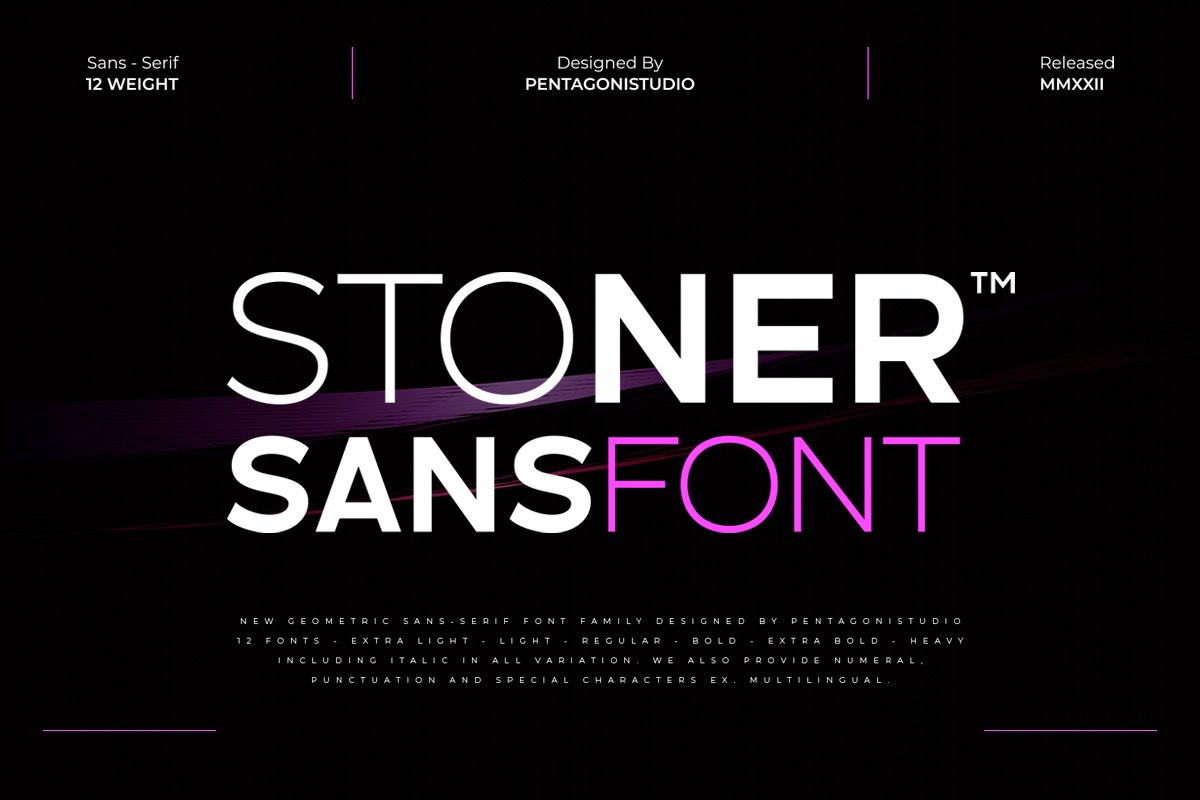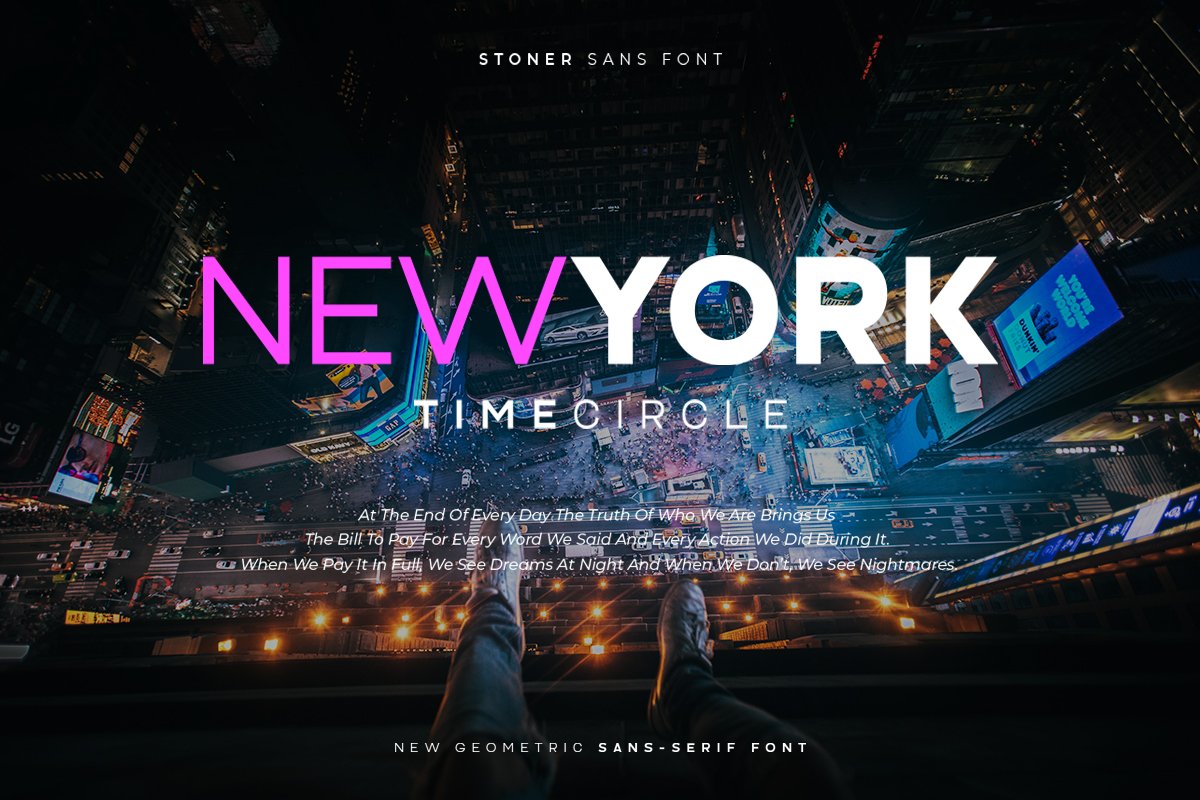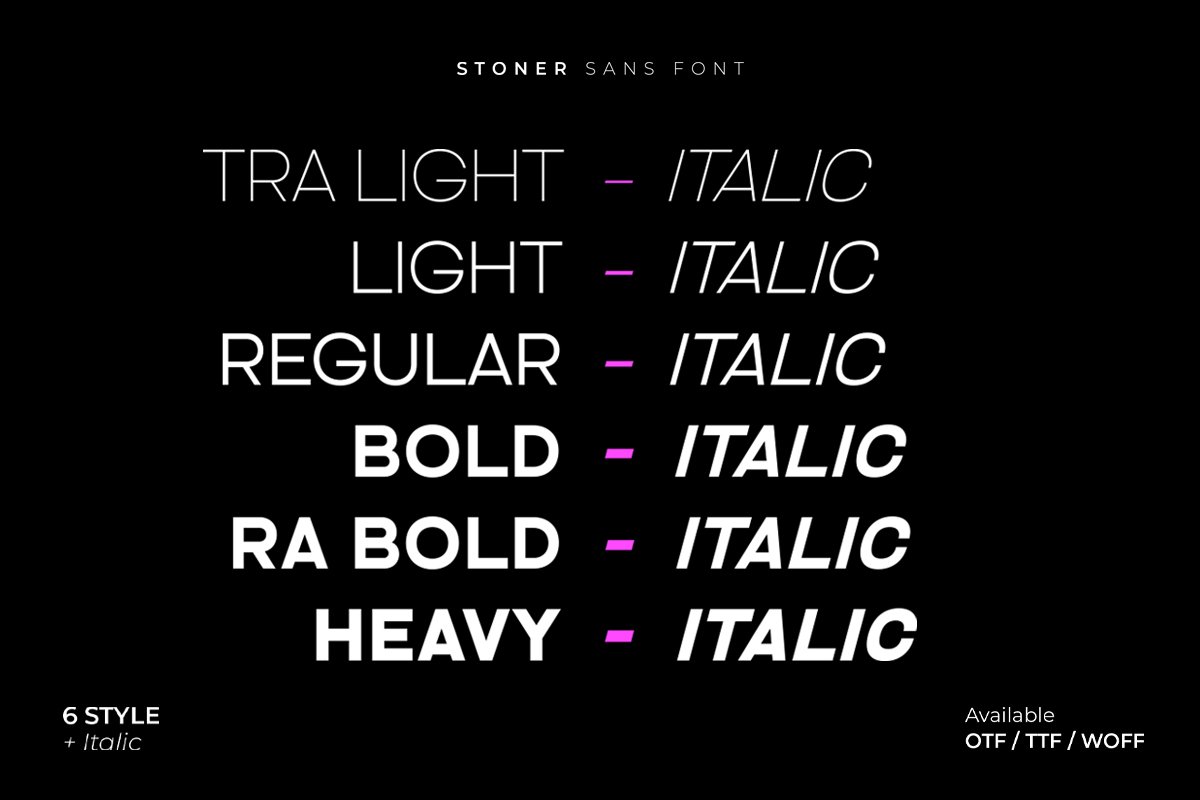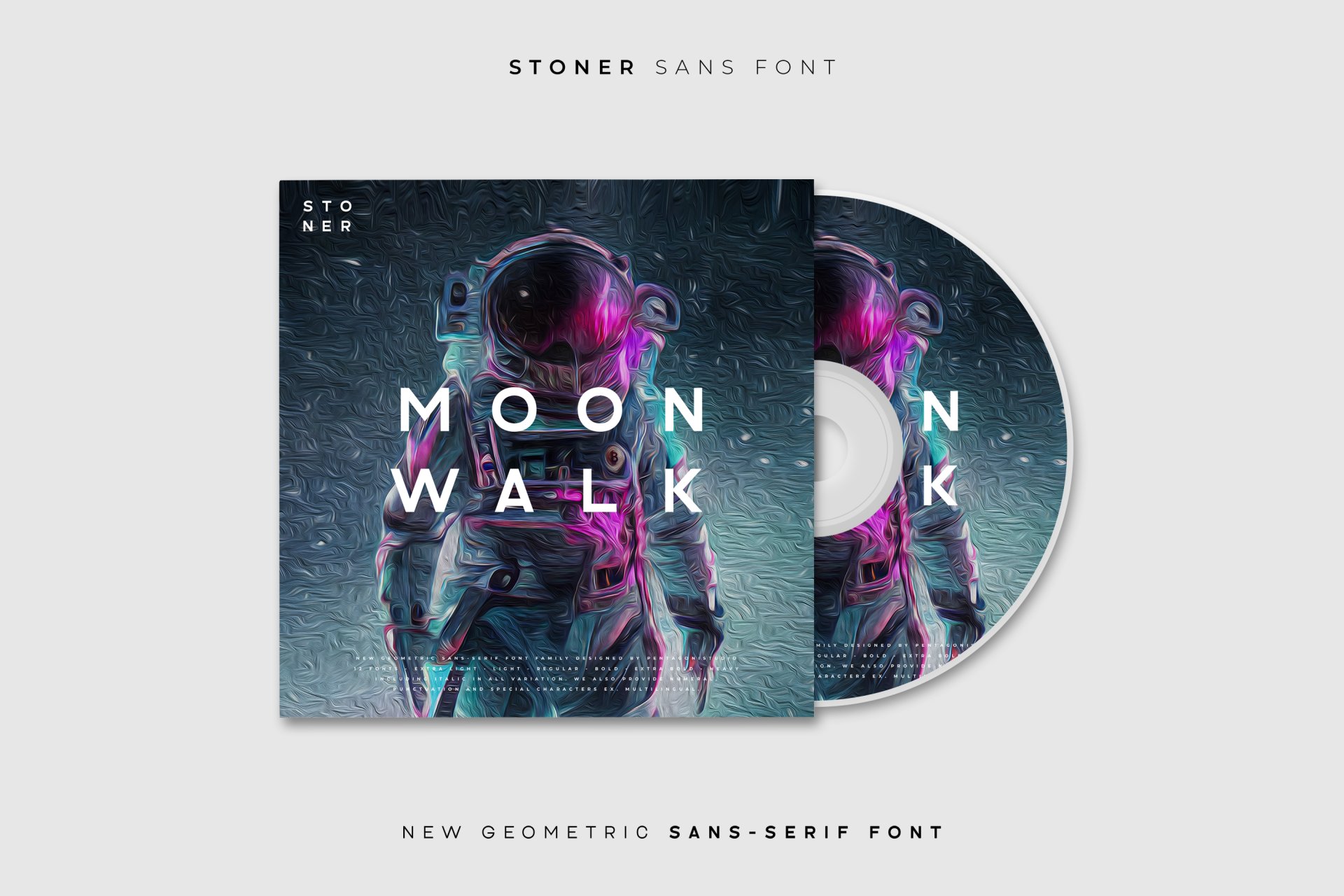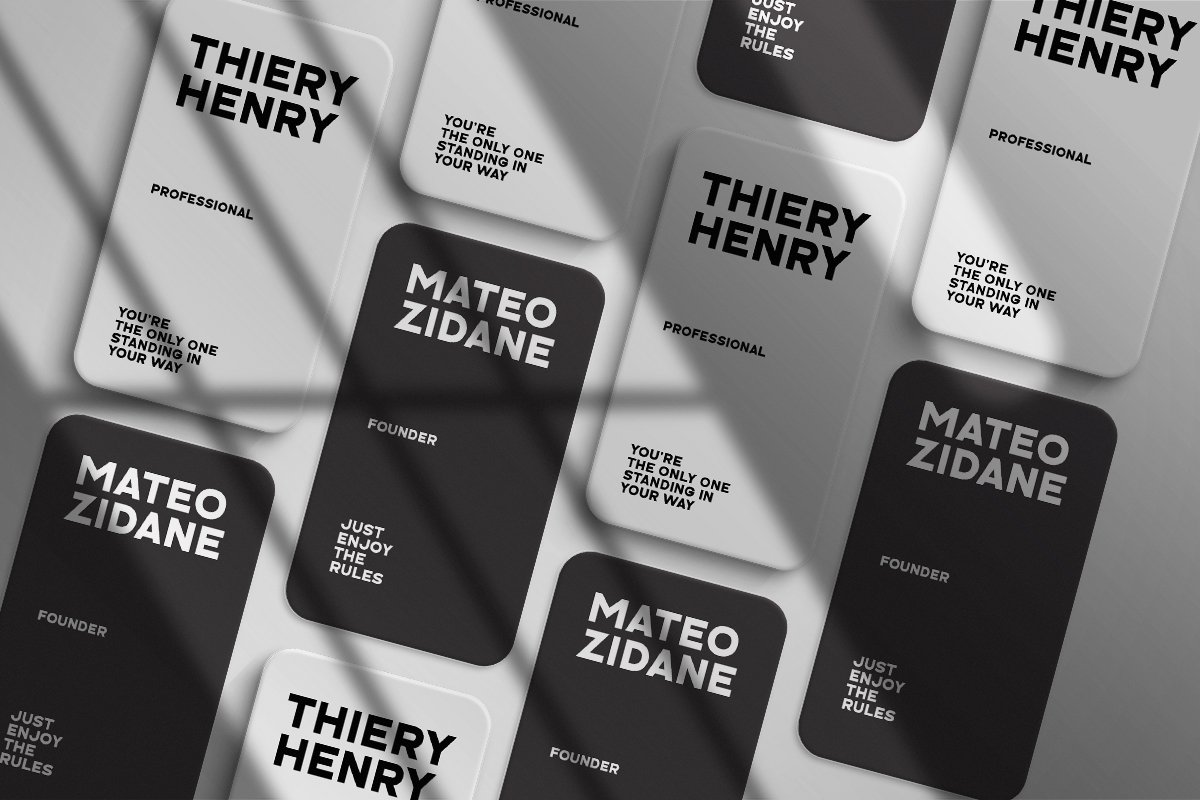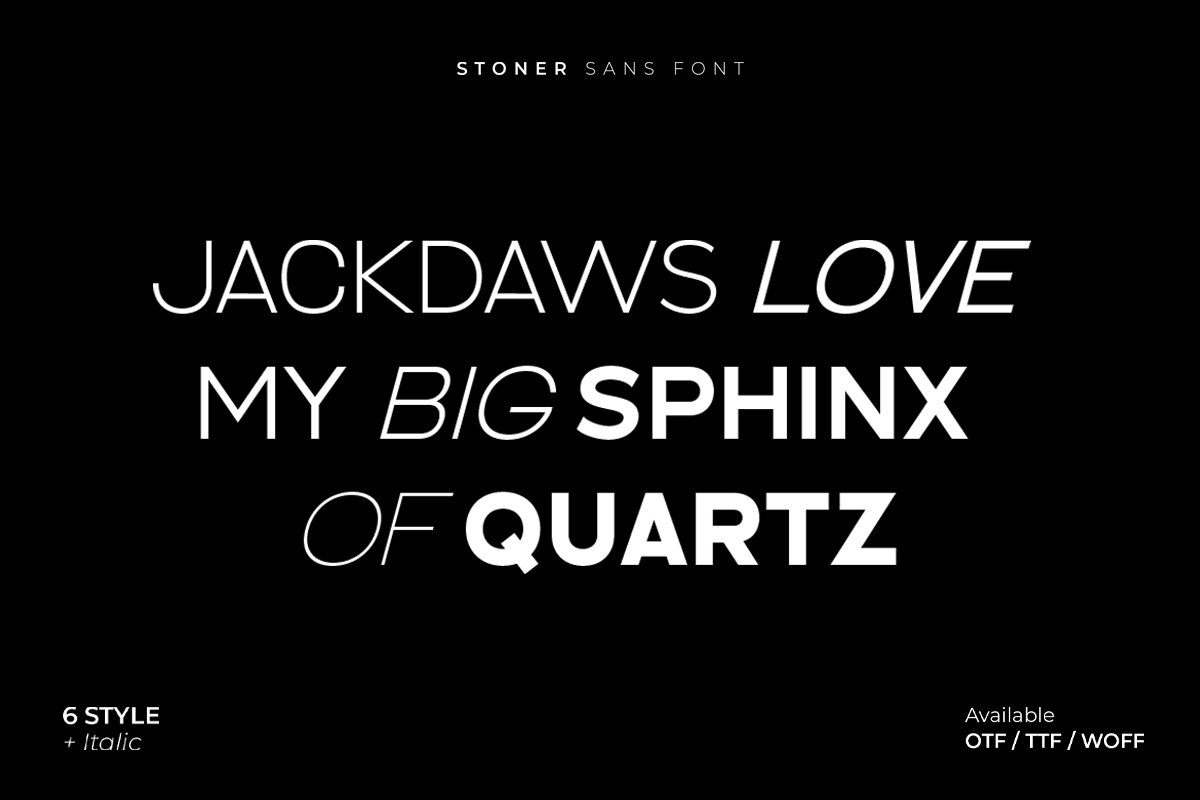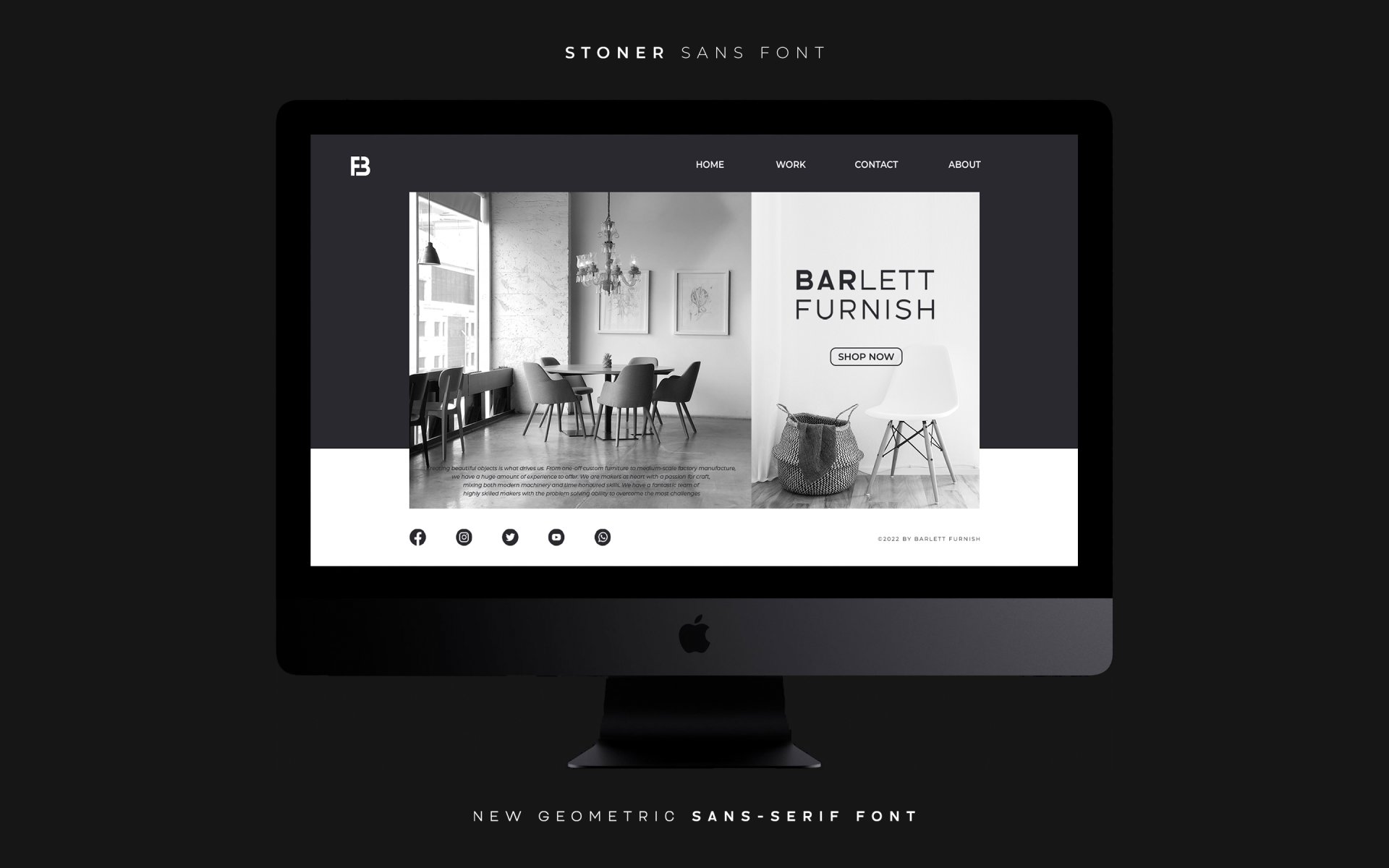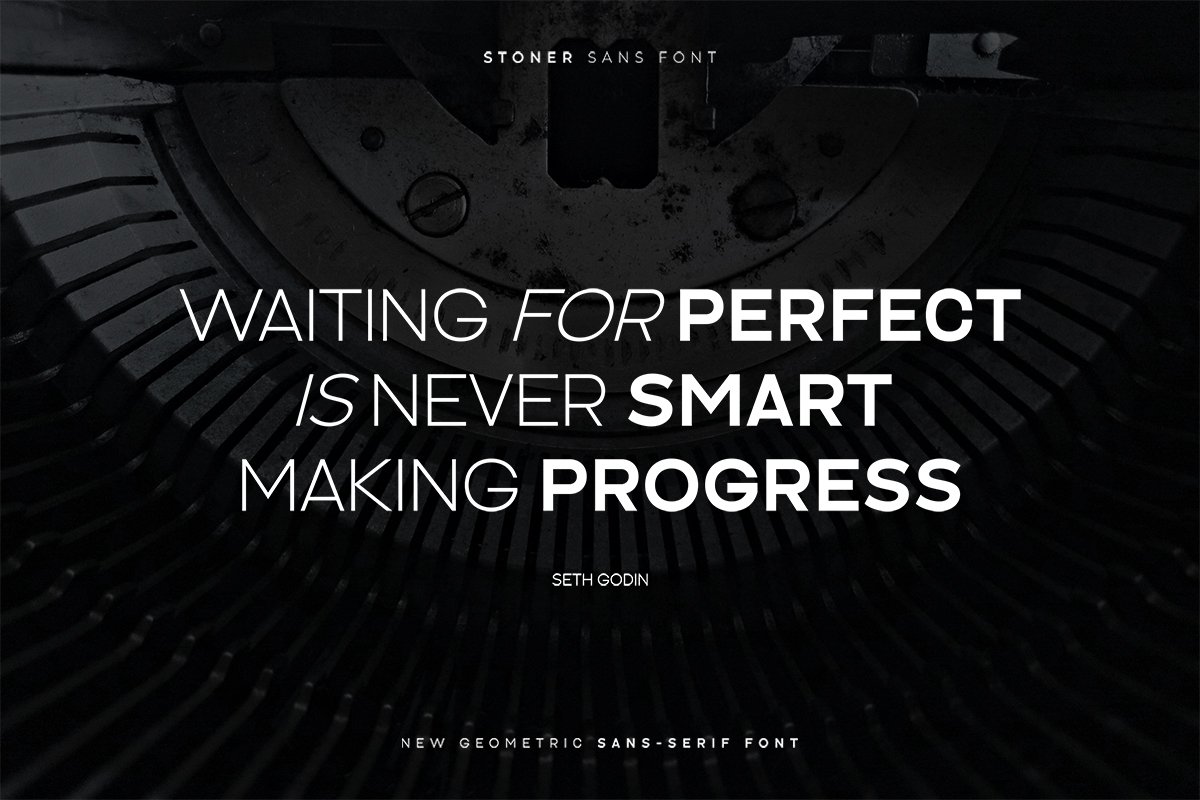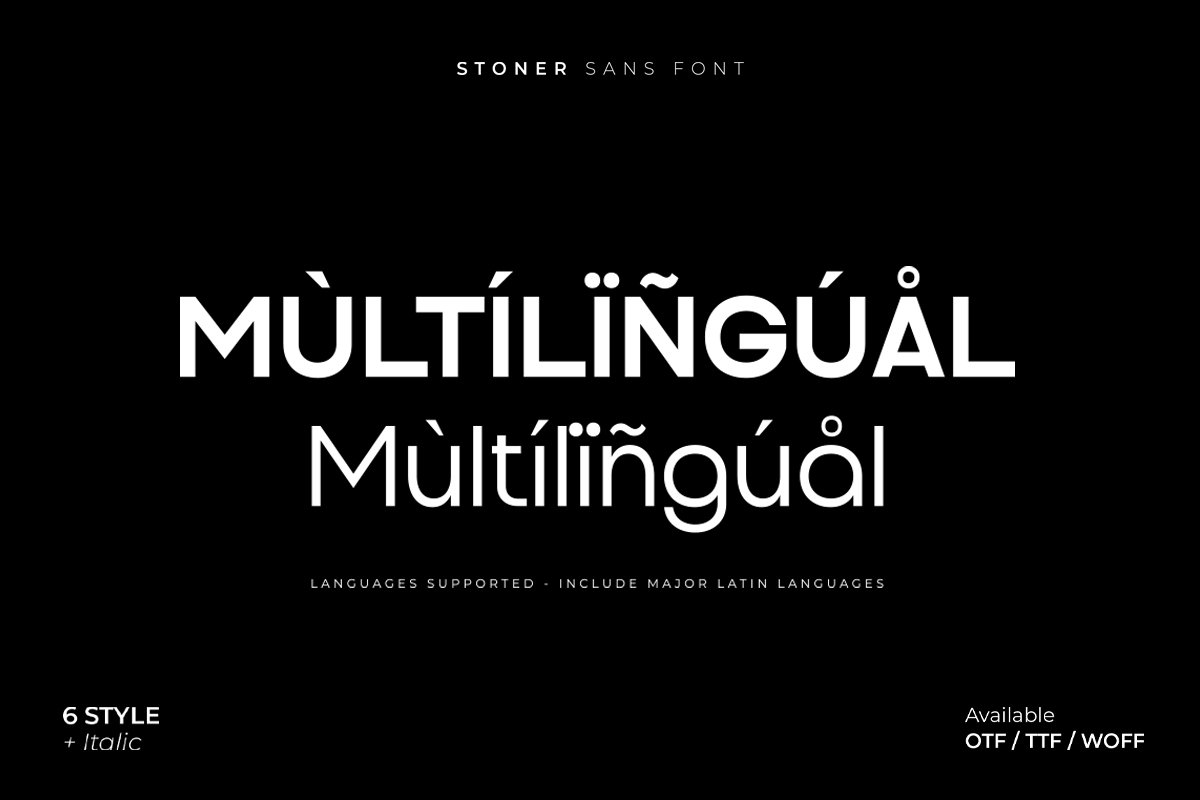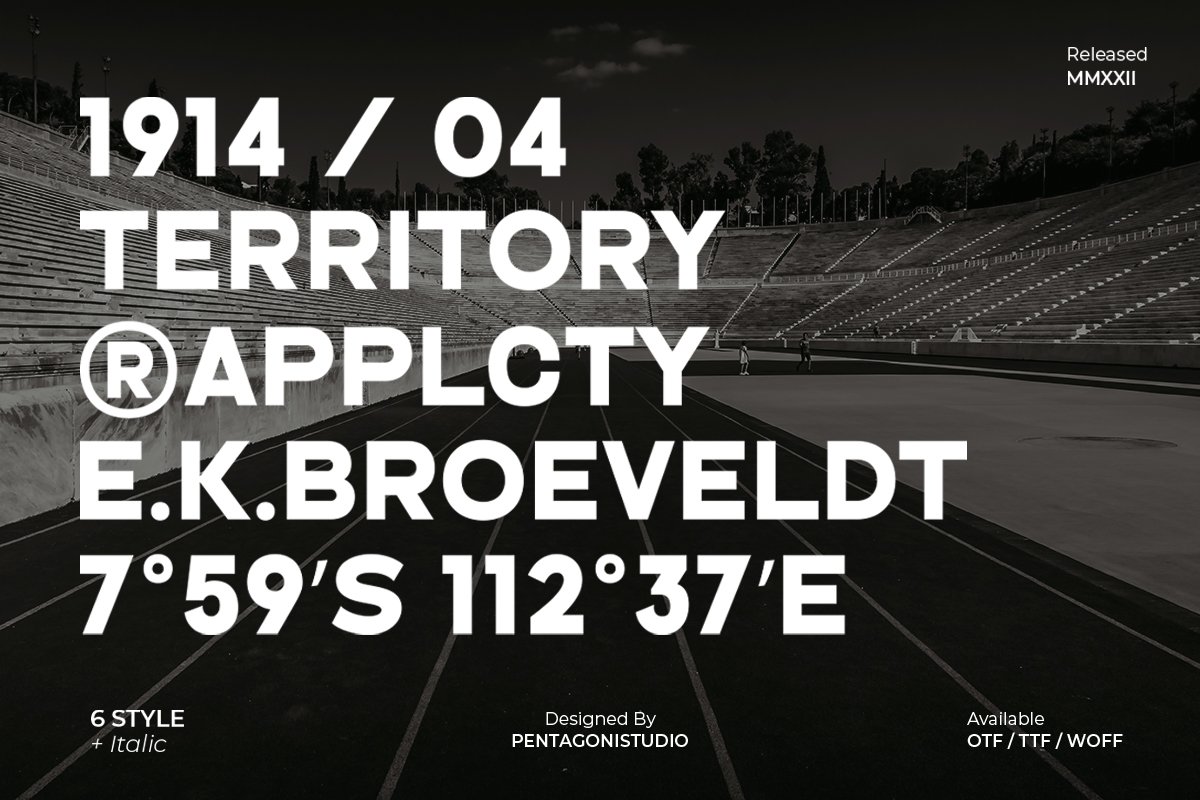
Stoner | 12 Sans Serif Font Family
Stoner Is New Geometric Family Sans Inspired By Modern and Elegant Font.
Font Features :
• STONER EXTRA LIGHT - ITALIC
• STONER LIGHT - ITALIC
• STONER REGULAR - ITALIC
• STONER BOLD - ITALIC
• STONER EXTRA BOLD - ITALIC
• STONER HEAVY - ITALIC